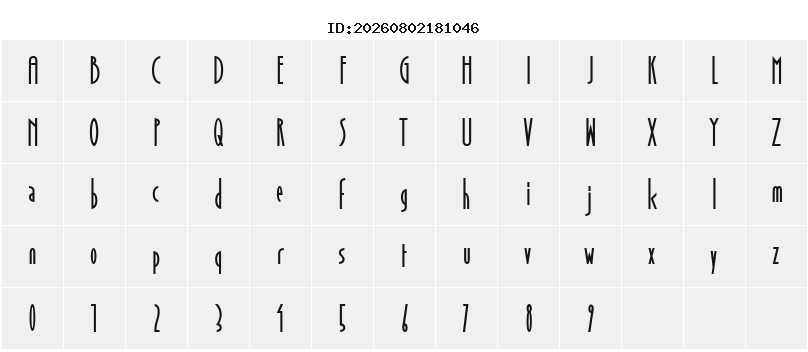
November Sky Demo Preview
• Font Name: November Sky Demo
• Designer: Roland Huse
About November Sky Demo.ttf
November Sky Demo.ttf is a modern, elegant sans-serif font designed for ultimate readability and visual harmony. Perfect for branding, headlines, web design, and print materials.